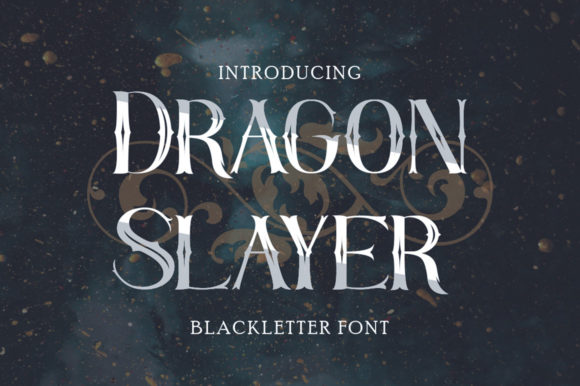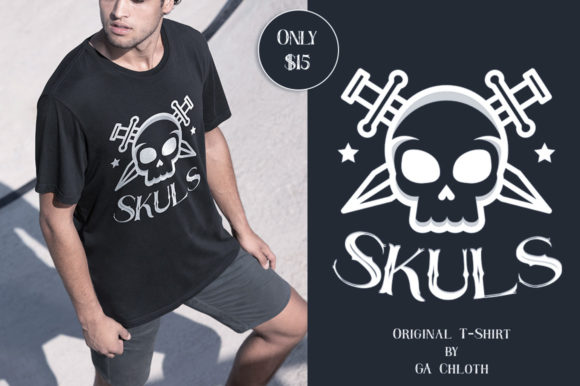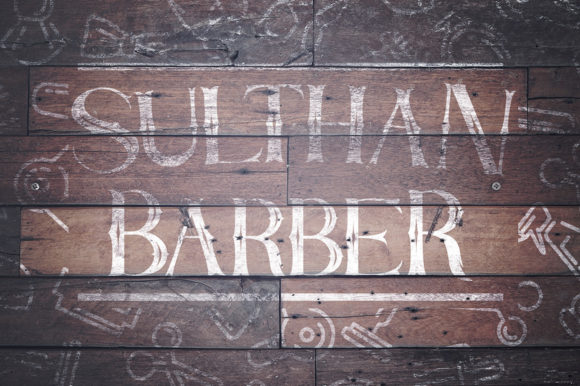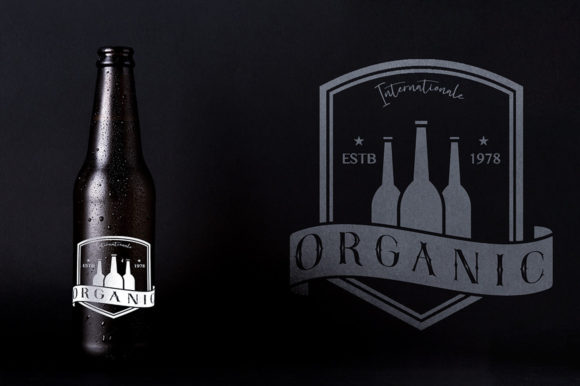
Dragon Slayer Font: Bold Blackletter for Creative Logo Design
About the Dragon Slayer Font
Get ready to be inspired by Dragon Slayer Font, a fresh and dynamic typeface for modern creators. Dragon Slayer is a cool, rough textured blackletter font. It is incredibly fit for various labels that require an assertive, bold touch. Add it confidently to your projects, and you will love the results.
Dragon Slayer excels in headlines, short impactful titles, and branding applications where a strong, assertive presence is desired. Its rugged texture works particularly well on logos, posters, and packaging for products emphasizing power or rebellion. Avoid using it for body text or long-form content; its complexity hinders readability at smaller sizes.
For effective pairings, consider a clean sans-serif like Montserrat or a geometric sans-serif such as Futura for a balanced contrast. These fonts provide readability and visual rest, allowing Dragon Slayer to maintain its impactful presence. A simple serif like Garamond could also work for a more traditional yet still striking combination.
The font’s core personality is bold and rebellious. It projects an image of strength and raw energy, making it suitable for brands and projects aiming for a powerful, uncompromising aesthetic.
Dragon Slayer Font Usage Examples
Dragon Slayer Font Example